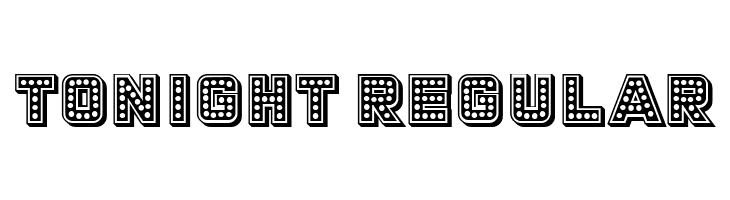
( Fonts by Vladimir Nikolic )
A bold, decorative font with a vintage marquee light style.
( Fonts by Mr.Soon Design )
A bold, decorative font with playful patterns and a lively style.
( Fonts by Billy Argel Fonts ® )
A bold, space-themed decorative font with playful star and planet motifs.
( Fonts by Andi Moz )
A decorative font with star-like embellishments on each character.
( Fonts by Brittney Murphy Design )
A playful, block-themed font with a 3D effect, ideal for children's projects.
( Fonts by Andi Moz )
A playful, star-filled decorative font with outlined characters.
( Fonts by Matthieu Guyonvarch )
A bold, geometric stencil font with enclosed characters and a modern industrial feel.
( Fonts by 177Studio )
A decorative font with intricate details and artistic embellishments.
( Fonts by Brittney Murphy Design )
A ruler-themed font with bold, precise characters and measurement markings.
( Fonts by Kimberly Geswein )
A playful, bold font with hand-drawn characters enclosed in black ovals.